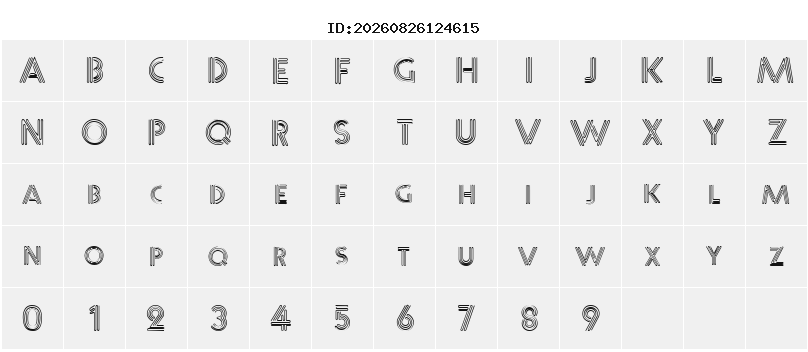
Warble Preview
• Font Name: Warble
• Full Font Name: Warble Normal
About Warble.ttf
Warble.ttf is a modern, elegant sans-serif font designed for ultimate readability and visual harmony. Perfect for branding, headlines, web design, and print materials.